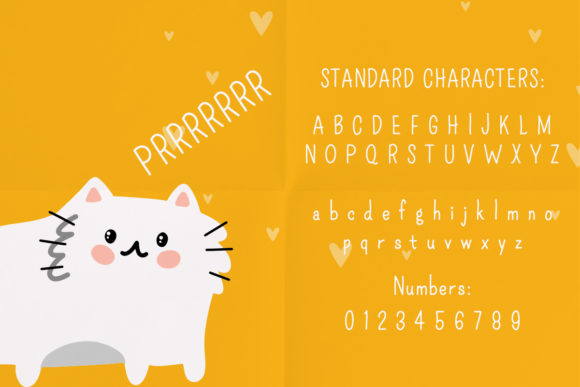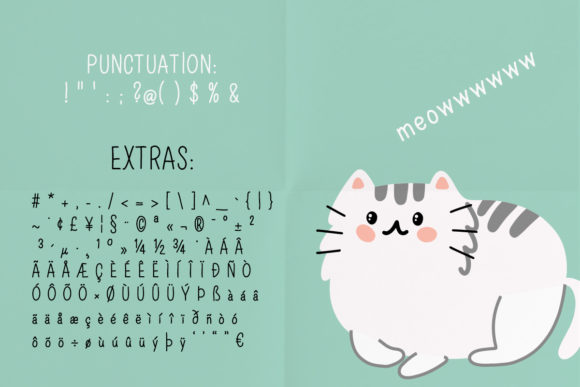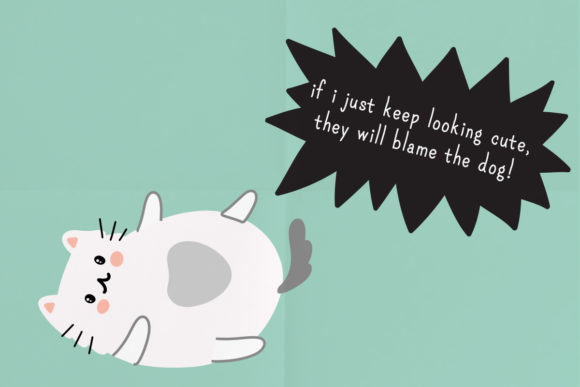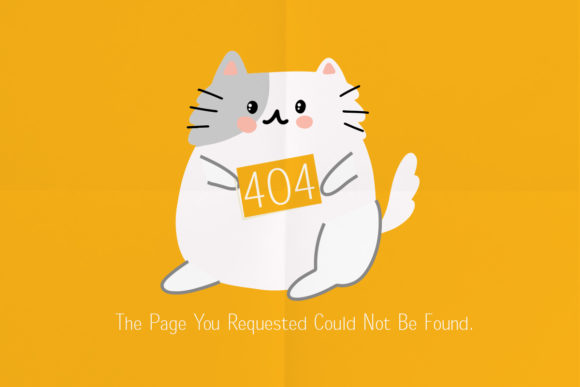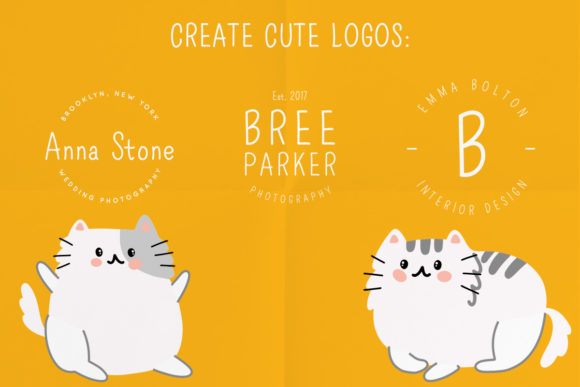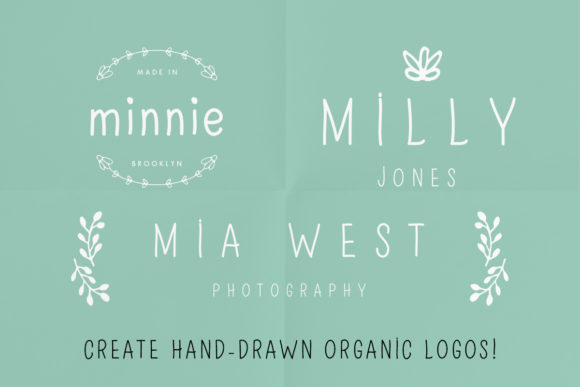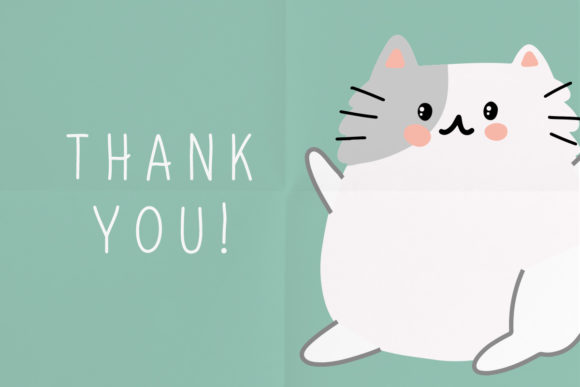
Meow Font
About Meow Font
Meow a cute hand-drawn font! Its casual charm makes it appear wonderfully down-to-earth, readable and, ultimately, incredibly versatile. This versatility will appeal to a wide range of crafty ideas, from letterheads and titles, to stationery.